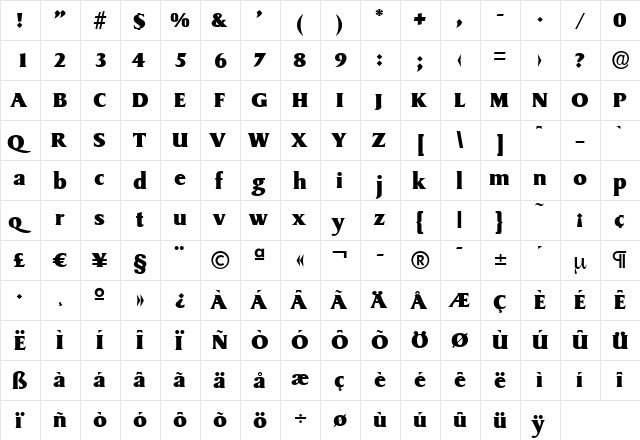
RudyBecker-Heavy Regular Font Preview
RudyBecker-Heavy Regular
Design Context for RudyBecker-Heavy Typeface
RudyBecker-Heavy offers clean, dependable letterforms without strong stylistic allegiance, making it a practical choice for designers who need flexibility.
Pro Tip: Use RudyBecker-Heavy in both headline and body roles to test its range before committing to a single application.